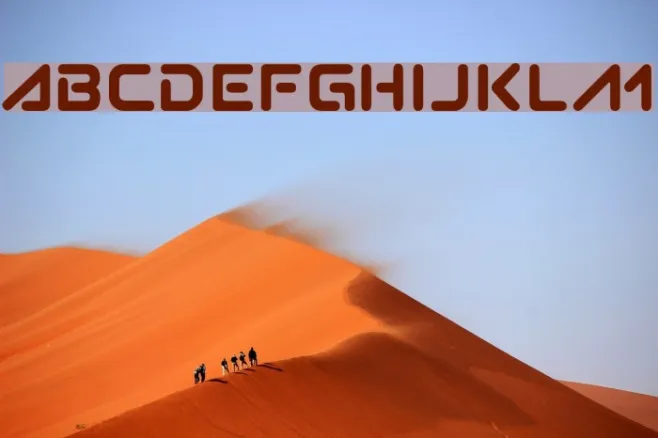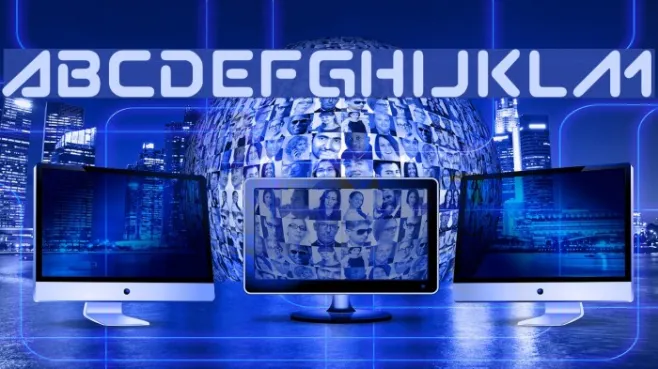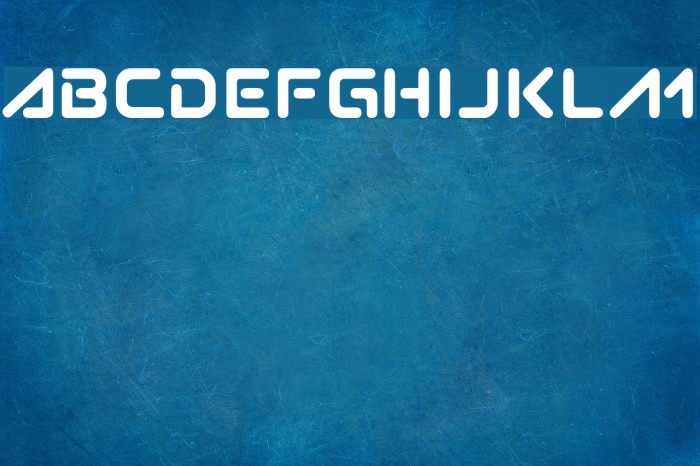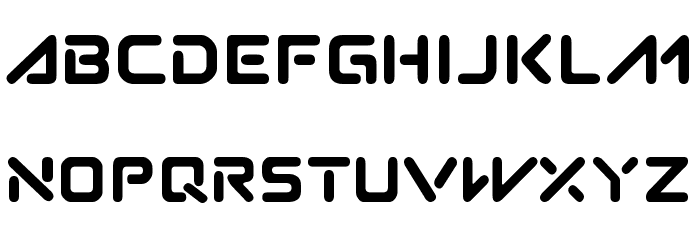
Subatomic Tsoonami Font
Subatomic Tsoonami Description
This font features a futuristic and geometric design, characterized by its bold and rounded letterforms. The characters exhibit a consistent stroke width, contributing to a modern and streamlined appearance. The uppercase and lowercase letters maintain a uniform style, with distinct angular cuts and smooth curves that enhance readability. The numerals and special characters follow the same design principles, ensuring a cohesive look across all elements. This font's unique style makes it suitable for projects that require a contemporary and tech-inspired aesthetic.
| Overall Style | Futuristic |
| Use Case | Logos, Headlines, Posters |
| Proposed Projects | Ideal for technology branding, sci-fi themed designs, video game interfaces, and modern advertising. |